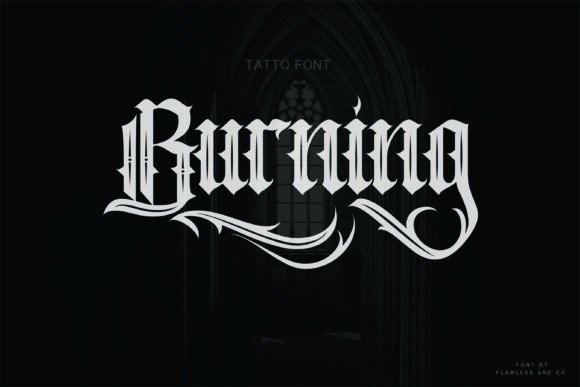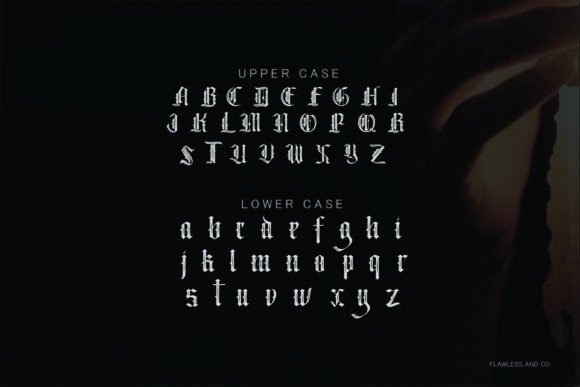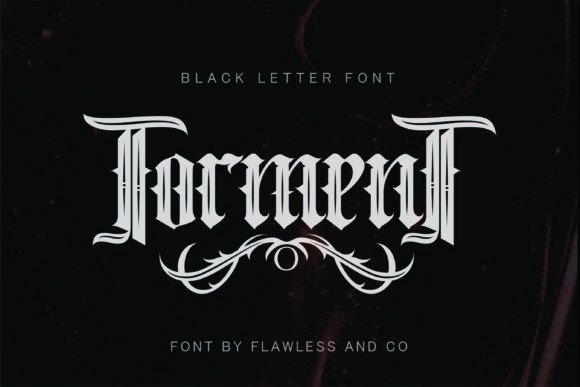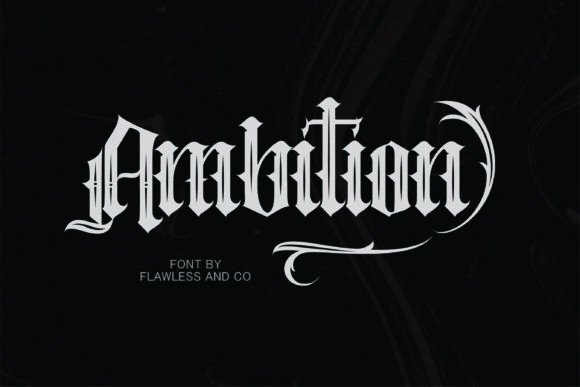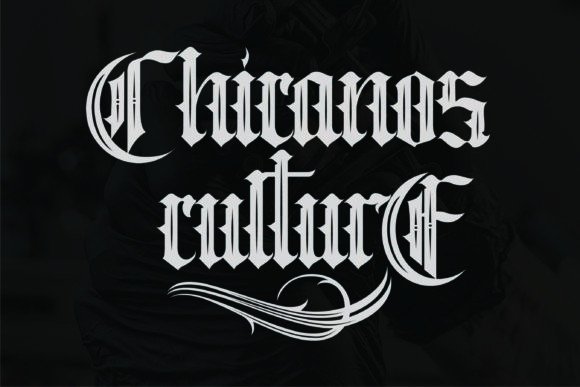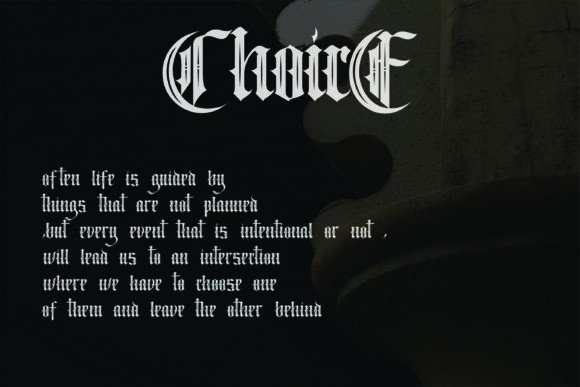
Introducing Delusoid Font: The Ultimate Blackletter Font for Bold Designs
Are you tired of using the same old fonts for your designs? Do you want to add a touch of uniqueness and boldness to your creations? Look no further than Delusoid Font, the first Blackletter font that offers an authentic and distinctive style on each character. With Delusoid, you can take your designs to the next level and create stunning visuals that grab attention.
What is Delusoid Font?
Delusoid Font is a Blackletter font that boasts a one-of-a-kind style, making it perfect for designers and crafters who want to add a bold touch to their work. Unlike traditional Blackletter fonts that can look monotonous and repetitive, Delusoid offers a unique twist on each character, ensuring that your designs stand out from the crowd.
Endless Design Possibilities with Delusoid
Delusoid Font is incredibly versatile, making it suitable for a wide range of design projects. Whether you’re creating:
- Poster designs that need to make a statement
- Branding materials that require a bold and eye-catching font
- T-shirts and apparel that need a unique and stylish font
- Business cards that want to make a lasting impression
- Logos that require a distinctive and memorable font
- Photography and quotes that need a bold and striking font
Delusoid Font is the perfect choice. Its flexibility and uniqueness make it an excellent addition to any design project.
Alternate Characters for Added Visual Interest
One of the standout features of Delusoid Font is its alternate characters. With multiple variations of each character, you can experiment with different visual results to find the perfect fit for your design. Try out different alternates to add some variety and interest to your text, and watch your designs come to life.
Why Choose Delusoid Font?
So, why should you choose Delusoid Font for your next design project? Here are just a few reasons:
- Unique style: Delusoid Font offers a bold and authentic Blackletter style that’s unlike anything else.
- Versatility: Delusoid can be used for a wide range of design projects, from posters and branding materials to t-shirts and business cards.
- Alternate characters: With multiple alternates for each character, you can experiment with different visual results to find the perfect fit for your design.
Tips for Using Delusoid Font
To get the most out of Delusoid Font, here are a few tips:
- Experiment with different sizes: Delusoid Font looks great in a variety of sizes, from large and bold to small and subtle.
- Play with color: Delusoid Font can be used with a range of colors, from bold and bright to muted and subtle.
- Mix and match: Try combining Delusoid Font with other fonts to create a unique and eye-catching design.
Delusoid Font is a game-changer for designers and crafters who want to add a bold and unique touch to their work. With its authentic and distinctive style, alternate characters, and versatility, Delusoid is the perfect choice for a wide range of design projects. So why wait? Try Delusoid Font today and take your designs to the next level!